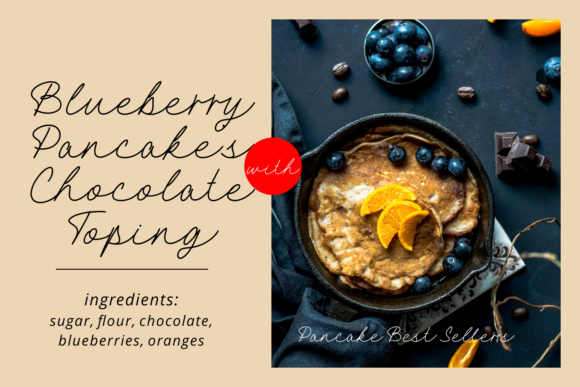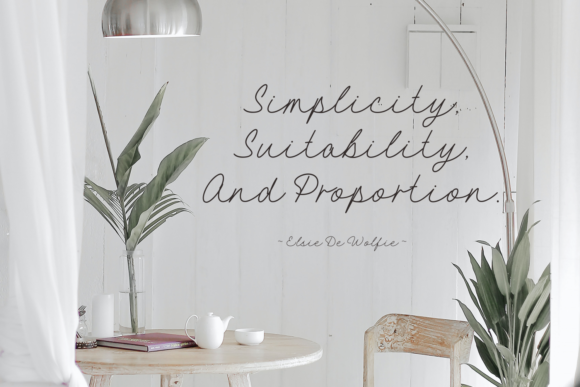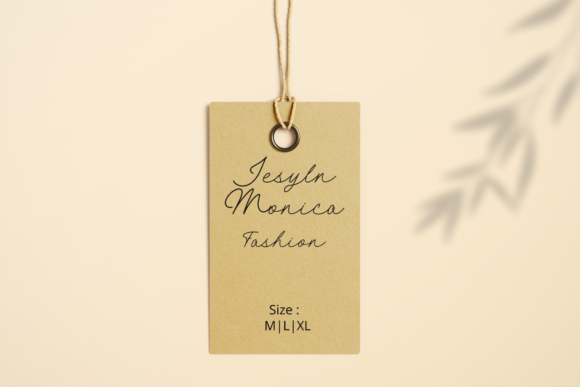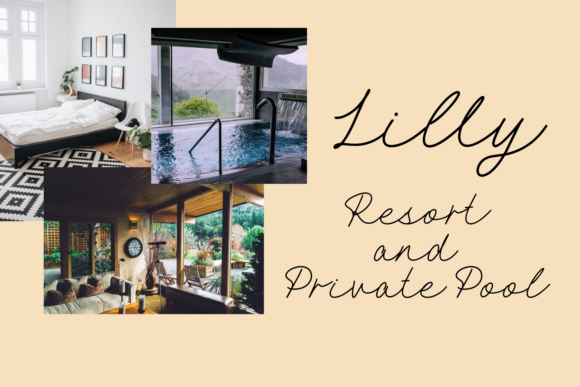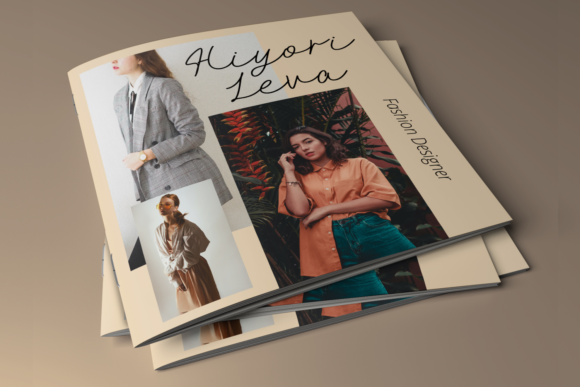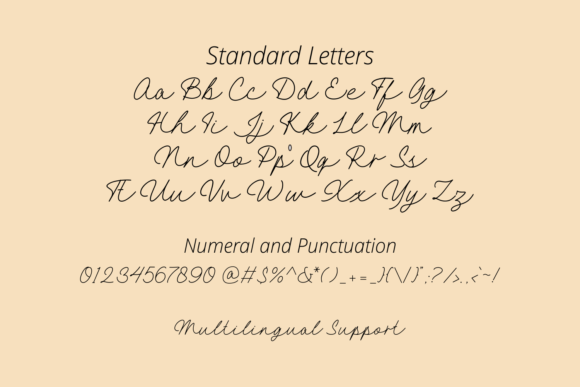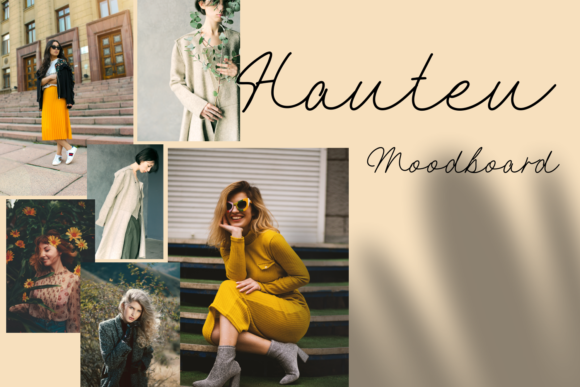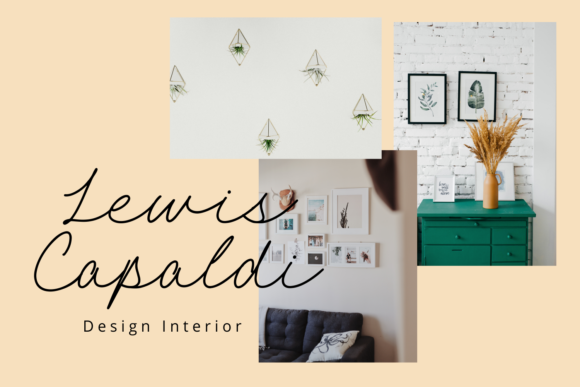
Hellena Font
About Hellena Font
Hellena is an enchanting and elegant handwritten font, gracefully designed to mesmerize with its delicate and flowing style. Its versatility knows no bounds, making it the perfect choice for crafting stunning wedding invitations, exquisite stationary art, captivating social media posts, and a myriad of other captivating projects.
In the realm of wedding invitations, Hellena casts a spell of sophistication and romance. Each stroke of this font exudes an air of timeless charm, setting the stage for an unforgettable celebration of love. Whether for classic or modern weddings, Hellena effortlessly complements any theme, making the invitations a true work of art that leaves guests eagerly anticipating the event.
For stationary art, Hellena elevates the written word to a realm of beauty and elegance. Whether adorning letterheads, personal notes, or artistic calligraphy, each stroke dances with grace, evoking a sense of enchantment that captivates the beholder. With Hellena, even the simplest message becomes an expression of artistic brilliance.
In the digital sphere, Hellena becomes a beacon of allure for eye-catching social media posts. From Instagram stories to Facebook graphics, this font infuses each message with elegance, making it stand out in a sea of content. It’s the perfect companion for brands seeking to leave a lasting impression on their audience.
Incorporating Hellena into brand logos and identities adds a touch of finesse and sophistication. It becomes the embodiment of a brand’s personality, reflecting its style and values in every curve and flourish. Hellena ensures that a brand’s identity remains etched in the minds of customers.
For art prints and home decor, Hellena imparts an ethereal and dreamlike quality to any design. Inspiring quotes or heartfelt messages take on a poetic essence, transforming living spaces into havens of beauty and inspiration.
In packaging and product labeling, Hellena works its magic to captivate consumers and make products truly stand out on the shelves. It endows packages with a sense of elegance and allure, leaving a lasting impression on potential buyers.
From magazines to brochures, Hellena brings an air of sophistication to printed materials. Its flowing style elevates content and ensures that the written message becomes a visual delight.
In conclusion, Hellena is an exquisite and versatile handwritten font that brings elegance and charm to any creative project. Its delicate and flowing strokes make it the ideal choice for crafting memorable wedding invitations, expressive art, engaging social media content, and impactful brand identities. Embrace the enchantment of Hellena, and watch as it transforms your designs into captivating masterpieces that leave an everlasting impression on all who encounter them.